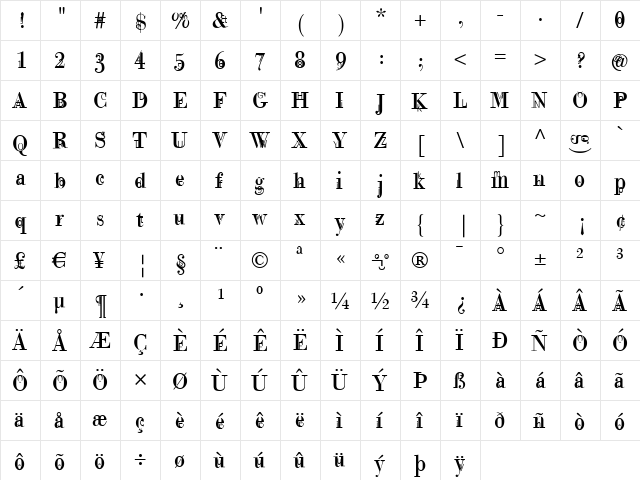
MotherAndChild Regular
MotherAndChild trades formality for fun, with bouncy, characterful letterforms that bring warmth and energy to any project.
Great for children's books, toy packaging, family event branding, and casual consumer-facing design.
Font Pairing: Pairs well with a rounded or humanist sans for body copy, maintaining the friendly tone without relying on MotherAndChild to carry extended reading.
Pro Tip: Avoid using MotherAndChild for long passages of text — it works best for headlines, labels, and short calls to action.